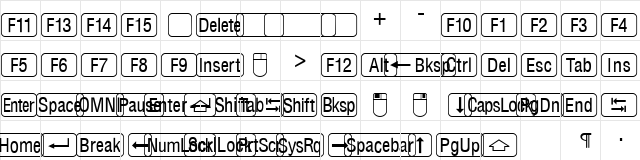
Dartworth Keys Regular
Design Context for Dartworth Keys Typeface
Dartworth Keys offers clean, dependable letterforms without strong stylistic allegiance, making it a practical choice for designers who need flexibility.